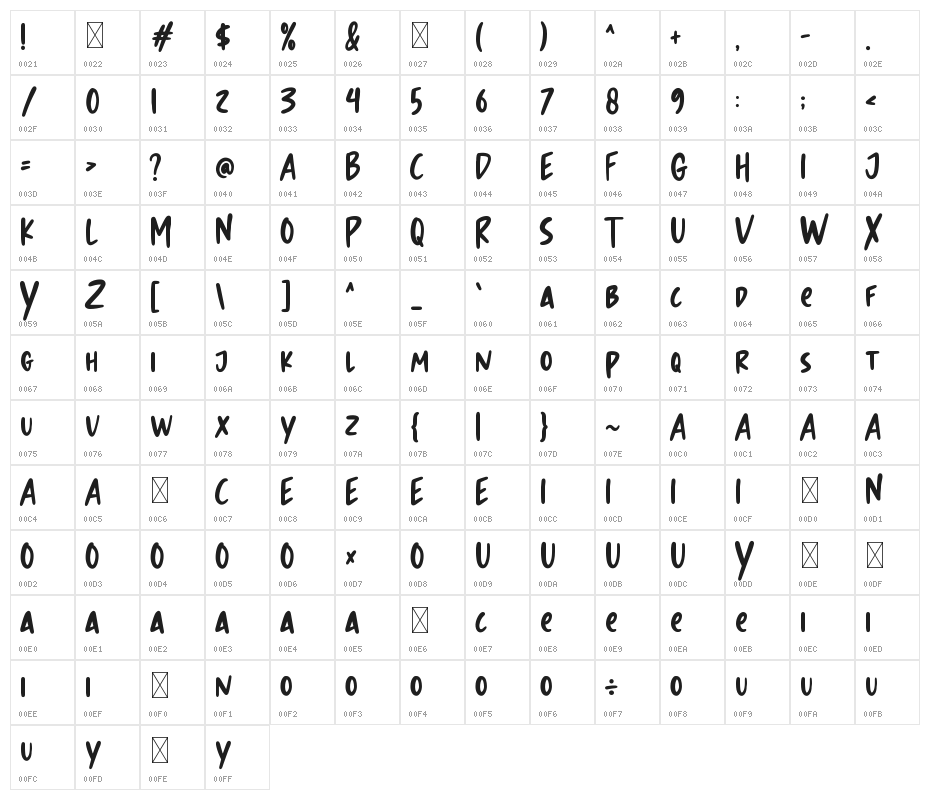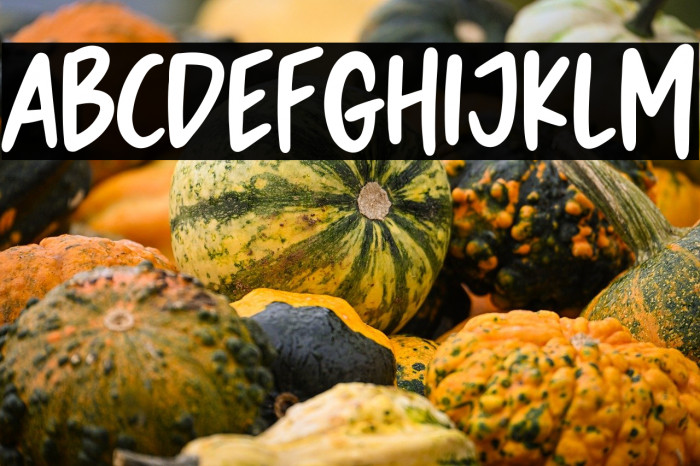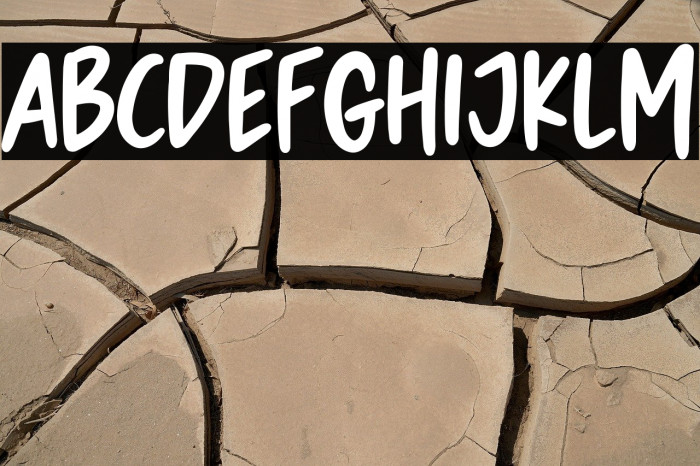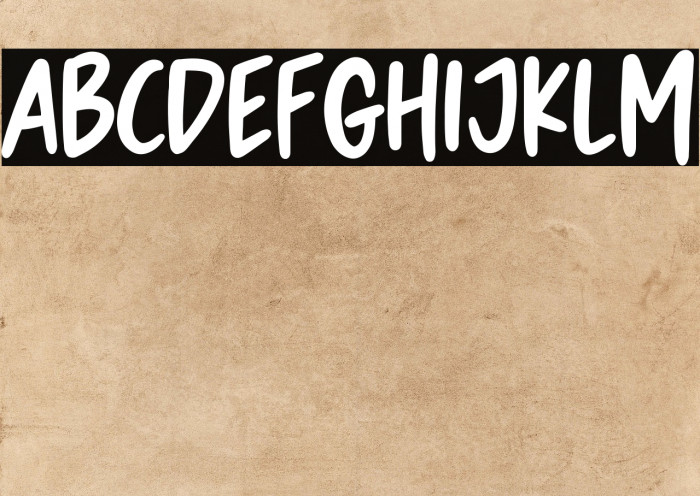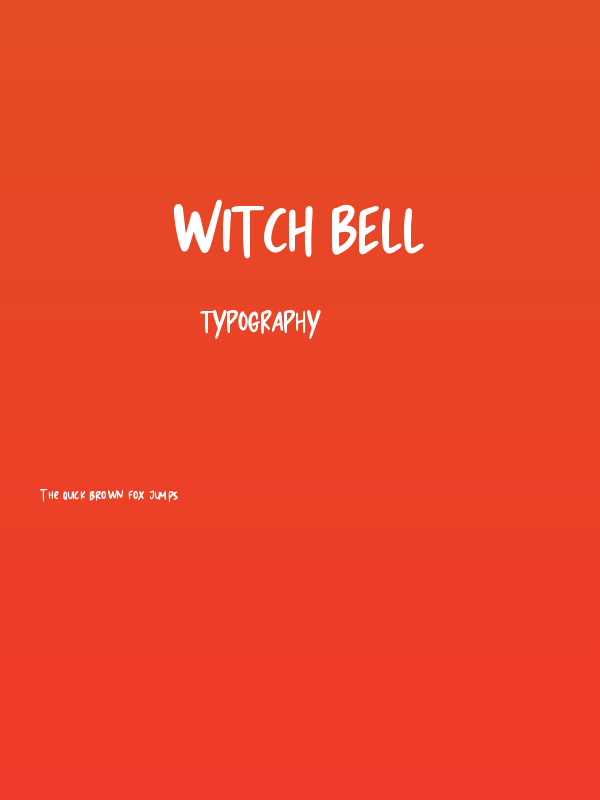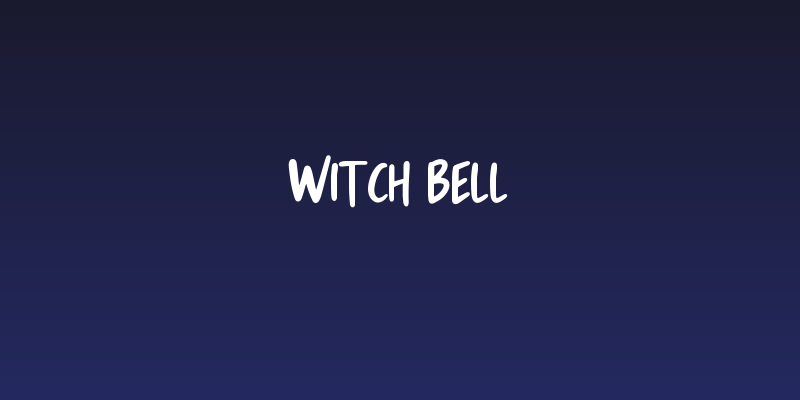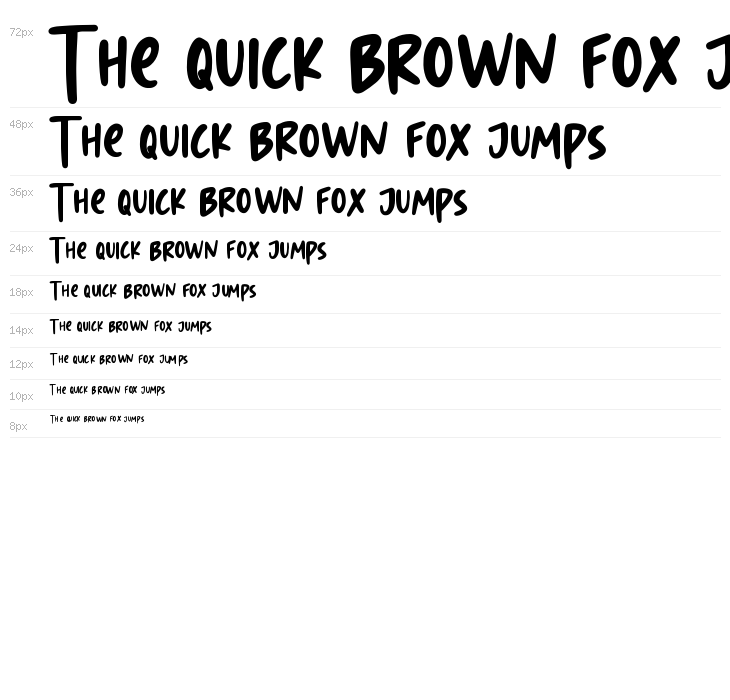
Witch Bell Font
Witch Bell Description
This font features a bold, handwritten style with a playful and casual appearance. The letters are slightly slanted, giving it a dynamic and energetic feel. The strokes are thick and consistent, providing a strong presence on the page. The characters are well-spaced, ensuring readability while maintaining a cohesive look. The numbers and special characters match the playful style of the letters, making it suitable for creative and informal designs. Its unique style makes it stand out, perfect for projects that require a personal touch.